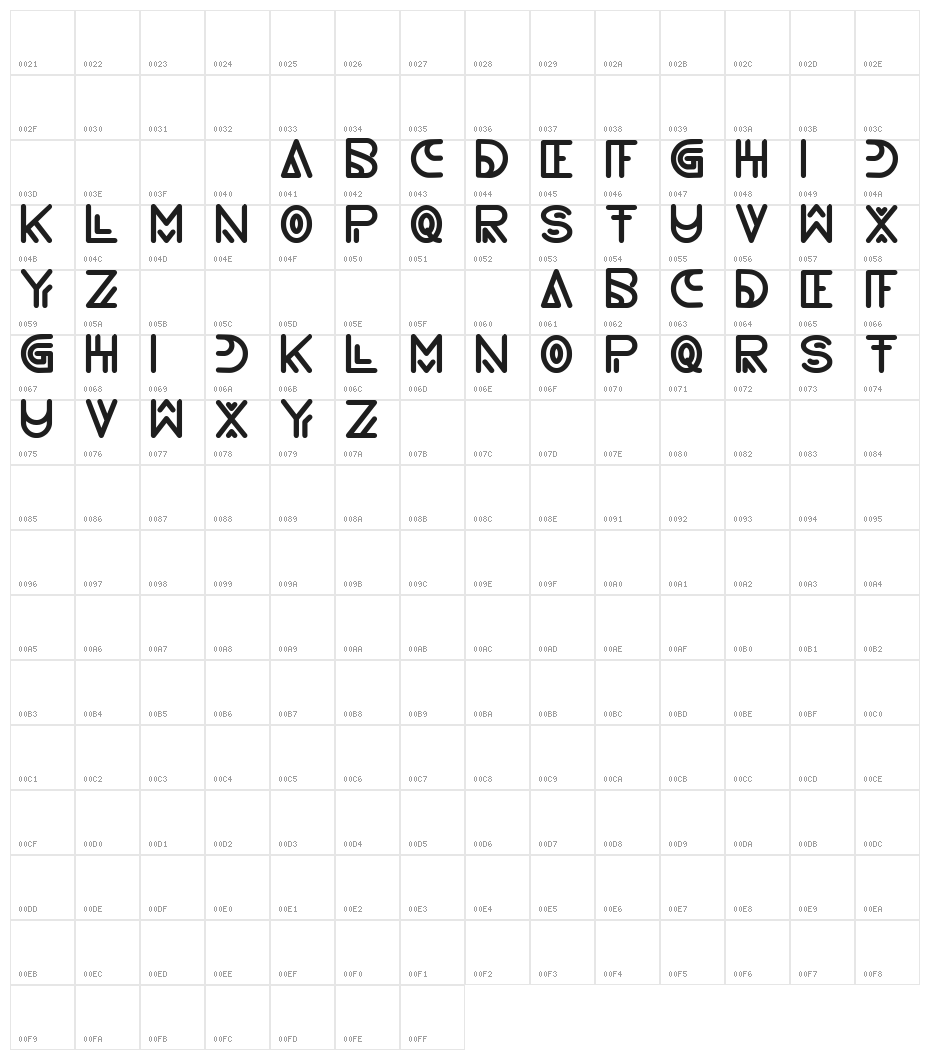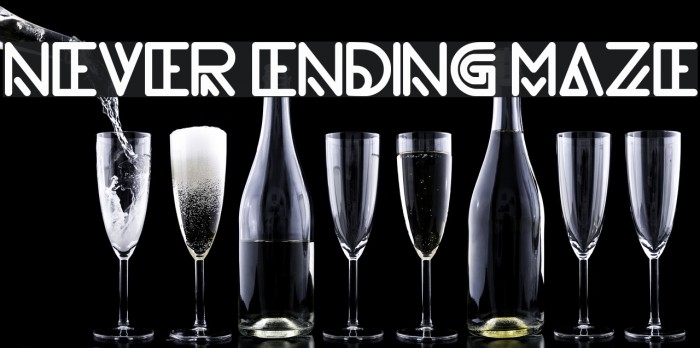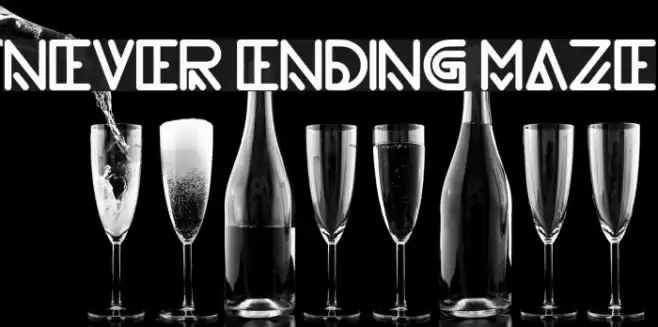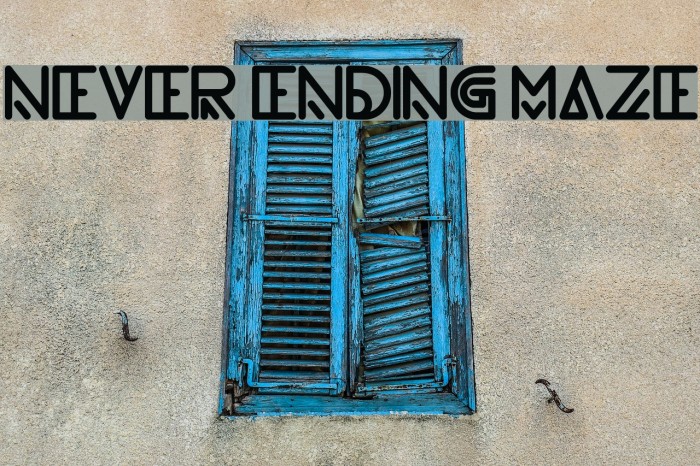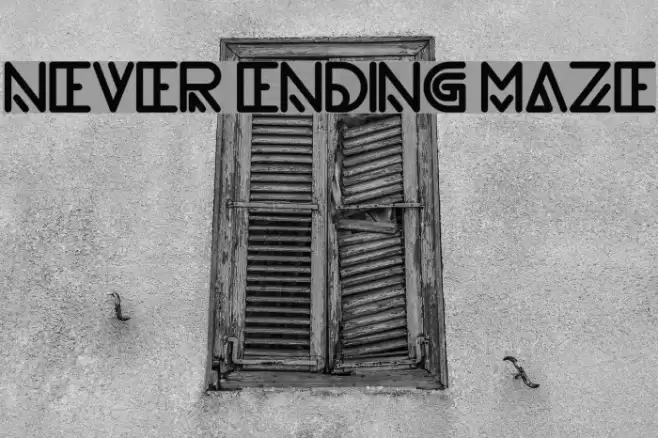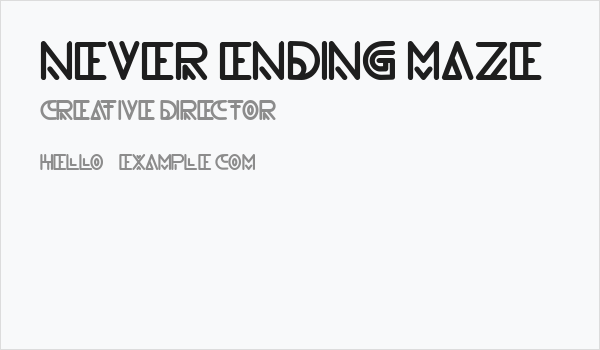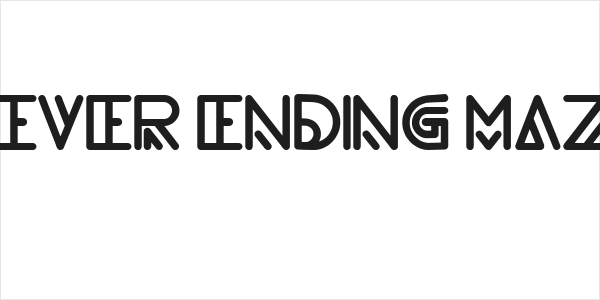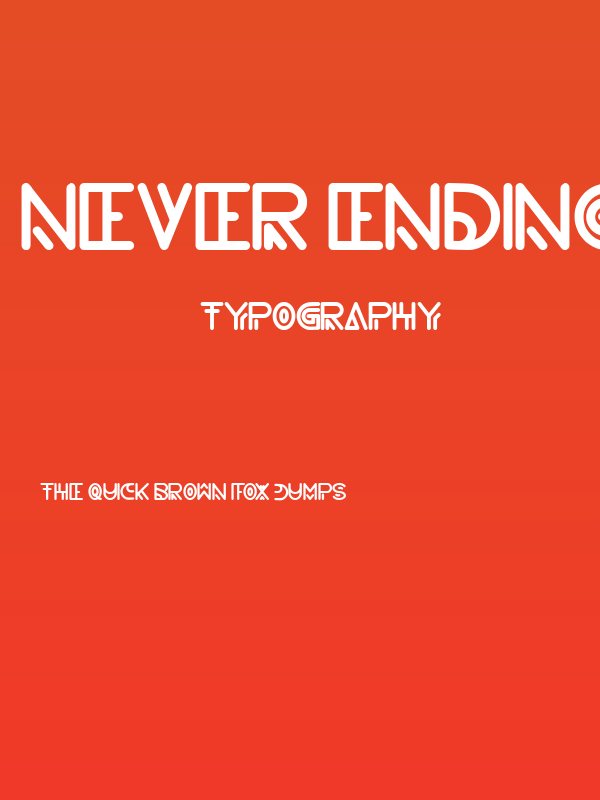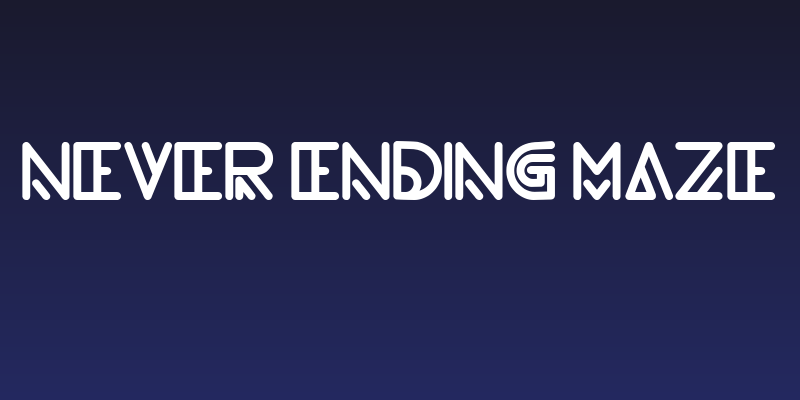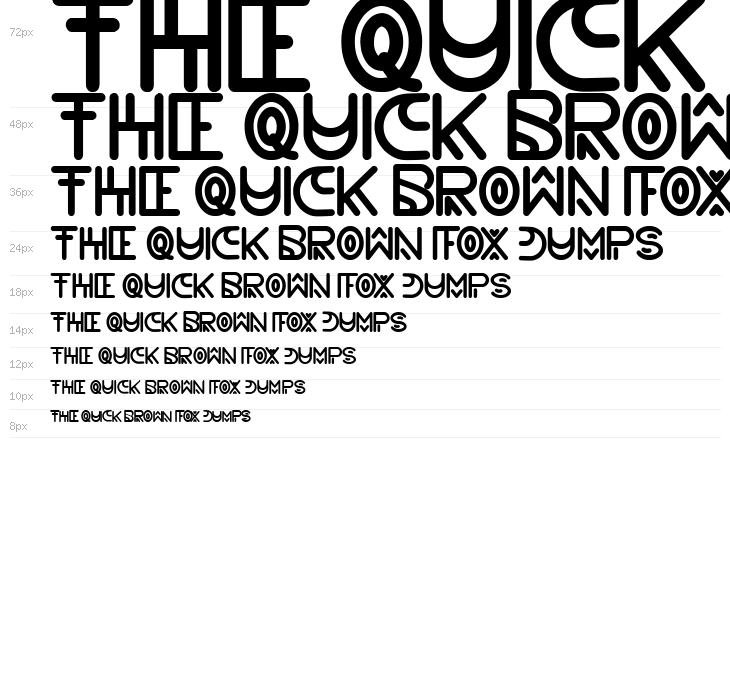
never ending maze Font
never ending maze Description
This font features a unique, geometric design with bold, interconnected lines that create a maze-like appearance. Each character is crafted with precision, incorporating a blend of straight and curved lines that form intricate patterns. The uppercase letters are particularly striking, with some characters resembling abstract symbols. The overall style is modern and artistic, making it suitable for creative and eye-catching designs. The font's distinctiveness lies in its ability to convey a sense of complexity and sophistication, while maintaining readability.
| Use Case | Logos, Posters, Branding |
| Proposed Projects | Ideal for branding, logos, posters, and any project requiring a modern, artistic touch. |